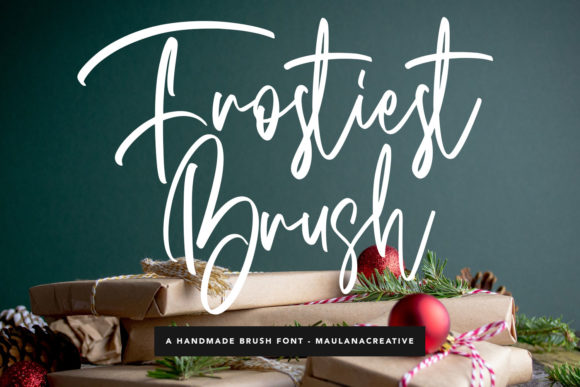
**Frostiest Brush Font: The Font of Choice for Standout Clothing Brands**
Unleash your creativity with Frostiest Brush, the ultimate handwritten font for fashion-forward clothing brands. This captivating script will elevate your designs to new heights, leaving an unforgettable impression on your customers.
**Handcrafted with a Touch of Sophistication**
Frostiest Brush is meticulously crafted with a relaxed and asymmetrical flair that exudes both casualness and elegance. Its subtle nuances and playful dance of strokes create a dynamic and visually appealing aesthetic, perfect for capturing the essence of modern fashion.
**Versatility at Your Fingertips**
Whether you're designing eye-catching logos, creating bold headlines, or adding a touch of personality to your packaging, Frostiest Brush adapts effortlessly to your every need. Its versatility knows no bounds, making it the perfect choice for a wide range of clothing items, from chic dresses to edgy streetwear.
**Express Your Brand's Unique Style**
With Frostiest Brush, you have the power to infuse your brand with a distinct personality that sets you apart from the competition. Its expressive strokes will resonate with fashion-conscious consumers who seek authenticity and style in every purchase they make.
**Elevate Your Designs to New Heights**
Embrace the bold and beautiful Frostiest Brush today and watch your clothing designs transform before your eyes. Its captivating charm will draw customers to your brand like moths to a flame, leaving them with an unforgettable experience that keeps them coming back for more.
**Crafted with Care by Maulana Creative**
Frostiest Brush is the brainchild of Maulana Creative, a renowned design studio known for its dedication to creating exceptional fonts that empower brands to reach their full potential. Trust in the expertise of Maulana Creative to deliver a font that exceeds your expectations and fuels your brand's success.